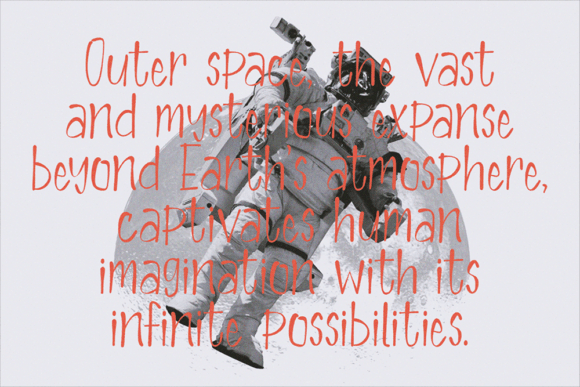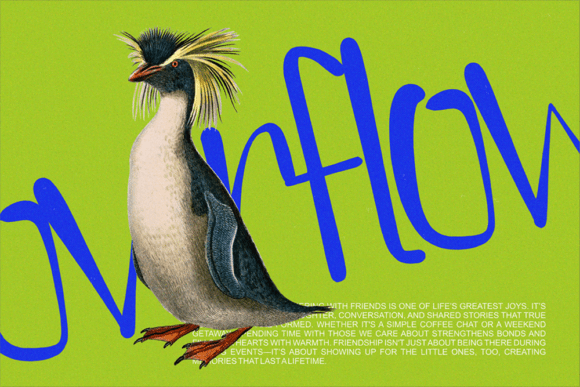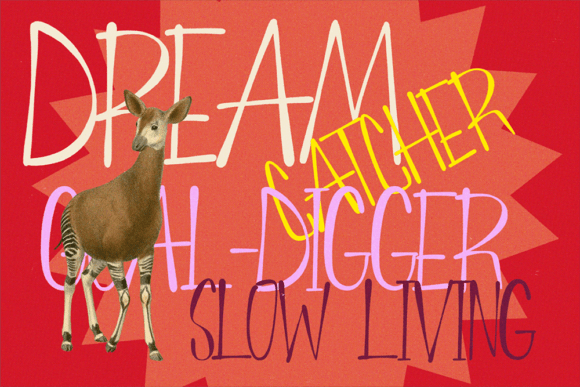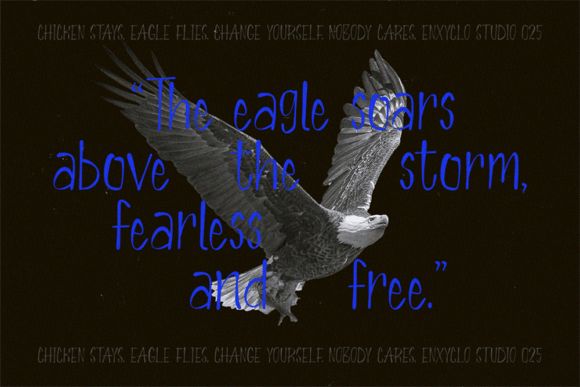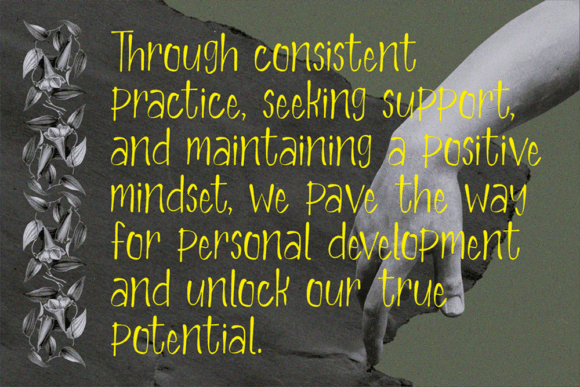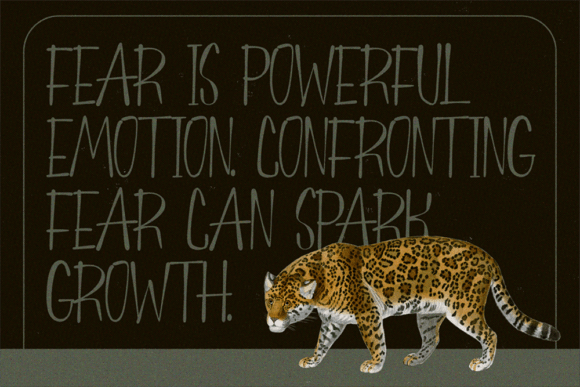
Discover the Playful Charm of Browavarge Font
Are you looking for a font that can add a touch of playfulness and whimsy to your designs? Look no further than Browavarge, a strikingly tall, hand-illustrated display font that is sure to captivate your audience. With its unique blend of charm, individuality, and organic texture, Browavarge is the perfect choice for designers and crafters who want to create eye-catching editorials, brand identities, packaging design, music album covers, modern logotypes, and poster art.
The Unique Character of Browavarge
Each letterform in Browavarge is meticulously hand-illustrated, giving the font a beautifully flawed and organic feel that infuses your designs with a comforting sense of warmth and texture. The extended proportions and creative edge of Browavarge add to its charismatic appeal, making it a natural choice for designers who want to create visually stunning designs that stand out from the crowd.
A Wealth of Glyphs and Multilingual Support
Browavarge is more than just a pretty font – it’s also incredibly versatile. With a generous offering of 390 distinct glyphs, Browavarge effortlessly accommodates uppercase and lowercase letters, numerals, punctuation, ligatures, and currency symbols. But that’s not all – it also includes comprehensive multilingual support, empowering you to communicate effectively in myriad languages and cultural contexts. Whether you’re creating a brand identity for a global company or designing a poster for a local event, Browavarge has got you covered.
So, what can you create with Browavarge? The possibilities are endless! Use it to create an offbeat brand image that sets you apart from the competition, or to command attention on social media with eye-catching graphics and posters. You can also use Browavarge to make a splash with your event poster, or to create stunning music album covers that showcase your artistic style.
Browavarge is a font that is specifically designed with designers and crafters in mind. Its unique character and versatility make it the perfect choice for anyone who wants to add a touch of personality to their designs. Whether you’re a seasoned designer or just starting out, Browavarge is a font that will help you to create visually stunning designs that capture the imagination of your audience.
Key Features of Browavarge
- Hand-illustrated display font with a playful and whimsical feel
- Strikingly tall letterforms with extended proportions and creative edge
- 390 distinct glyphs, including uppercase and lowercase letters, numerals, punctuation, ligatures, and currency symbols
- Comprehensive multilingual support for effective communication in multiple languages and cultural contexts
- Perfect for editorials, brand identities, packaging design, music album covers, modern logotypes, and poster art
In conclusion, Browavarge is a font that is sure to captivate your audience with its playful charm and unique character. With its wealth of glyphs, multilingual support, and endless design possibilities, Browavarge is the perfect choice for designers and crafters who want to create visually stunning designs that stand out from the crowd. So why wait? Discover the magic of Browavarge today and take your designs to the next level!